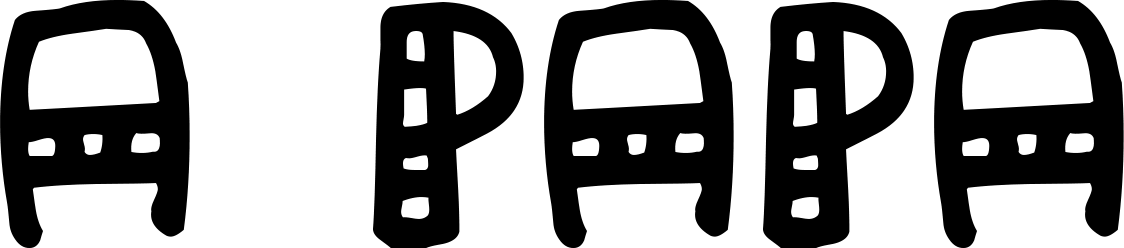
A Papa Font
A Papa is designed with eye-catching and native patterns that radiate a cheerful vibe. You can mostly use this Mexican font for decorative purposes, restaurant names, channel banners, native parties or events flyers, cartoon and movie titles, and informal texts. This font only supports capital letters and does not have a numeric set.